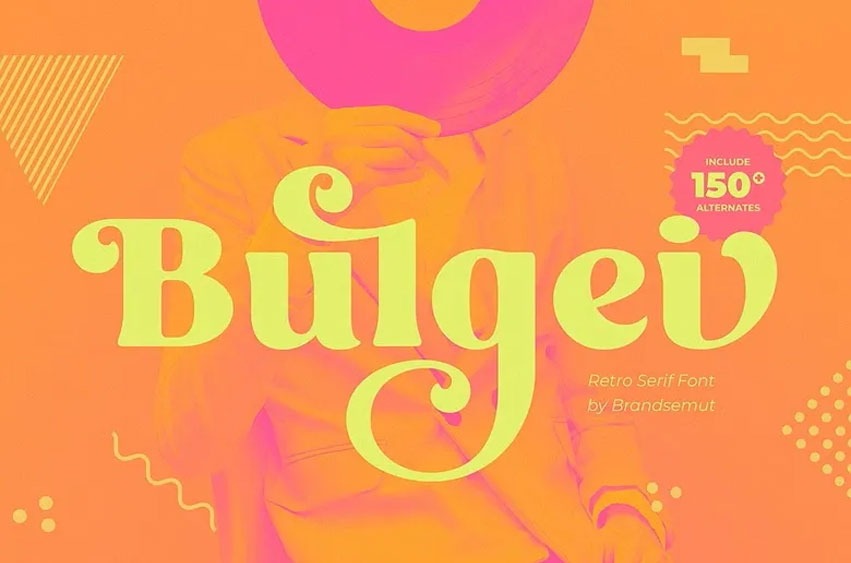
Bulgei Font
Bulgei Font is a new retro serif typeface. It is best for headings, logotypes, branding, magazines, product and sachet labels, invitations, booking cards, covers, and it’s ideal for letterheads as well.
Bulgei comes with clean lines, which makes the outside curves of a project stand out. Those of you who are in need of a touch of classical, style, class, retro, and modernity for your designs, then this font is designed for you.
The font is astonishing as Bulgei comprises more than 150 alternates, OpenType features including ligatures, numbers, punctuations, and other languages.